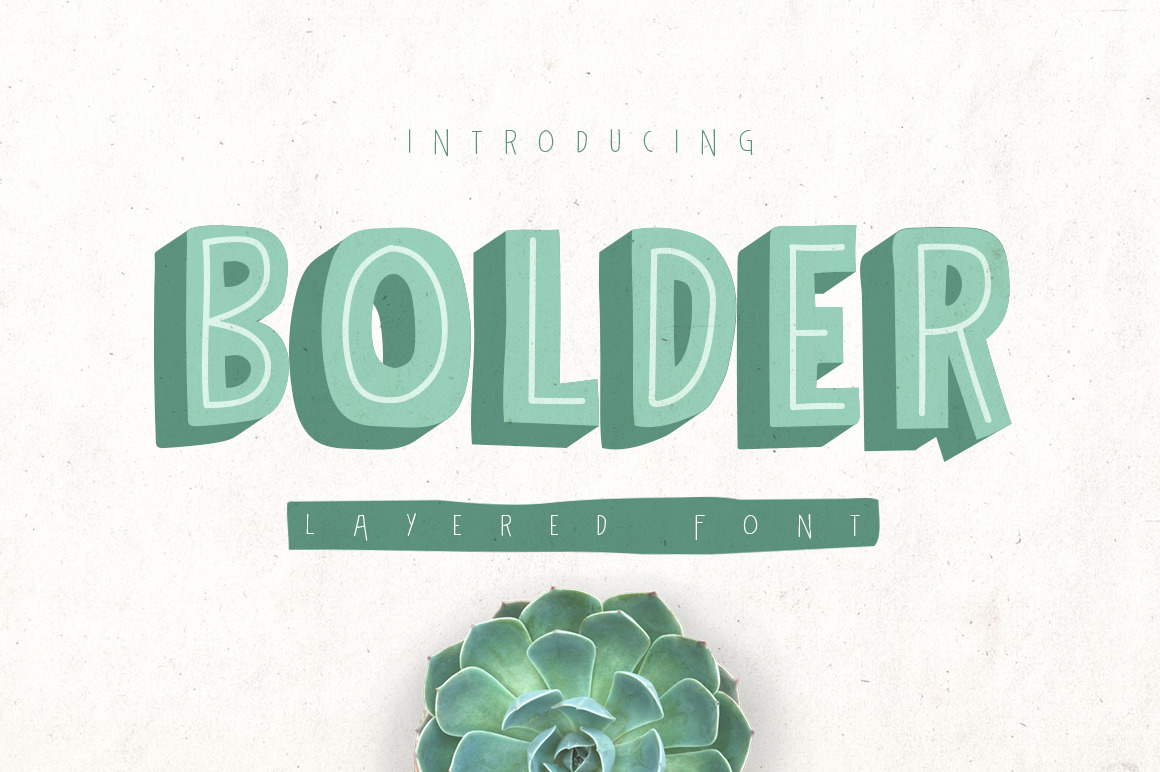
Bolder Layered Font
BOLDER
A New Font Layered BOLDER with shadow and light. This All character Uppercase Font. BOLDER make it super BOLD to Perfect for all Graphics.